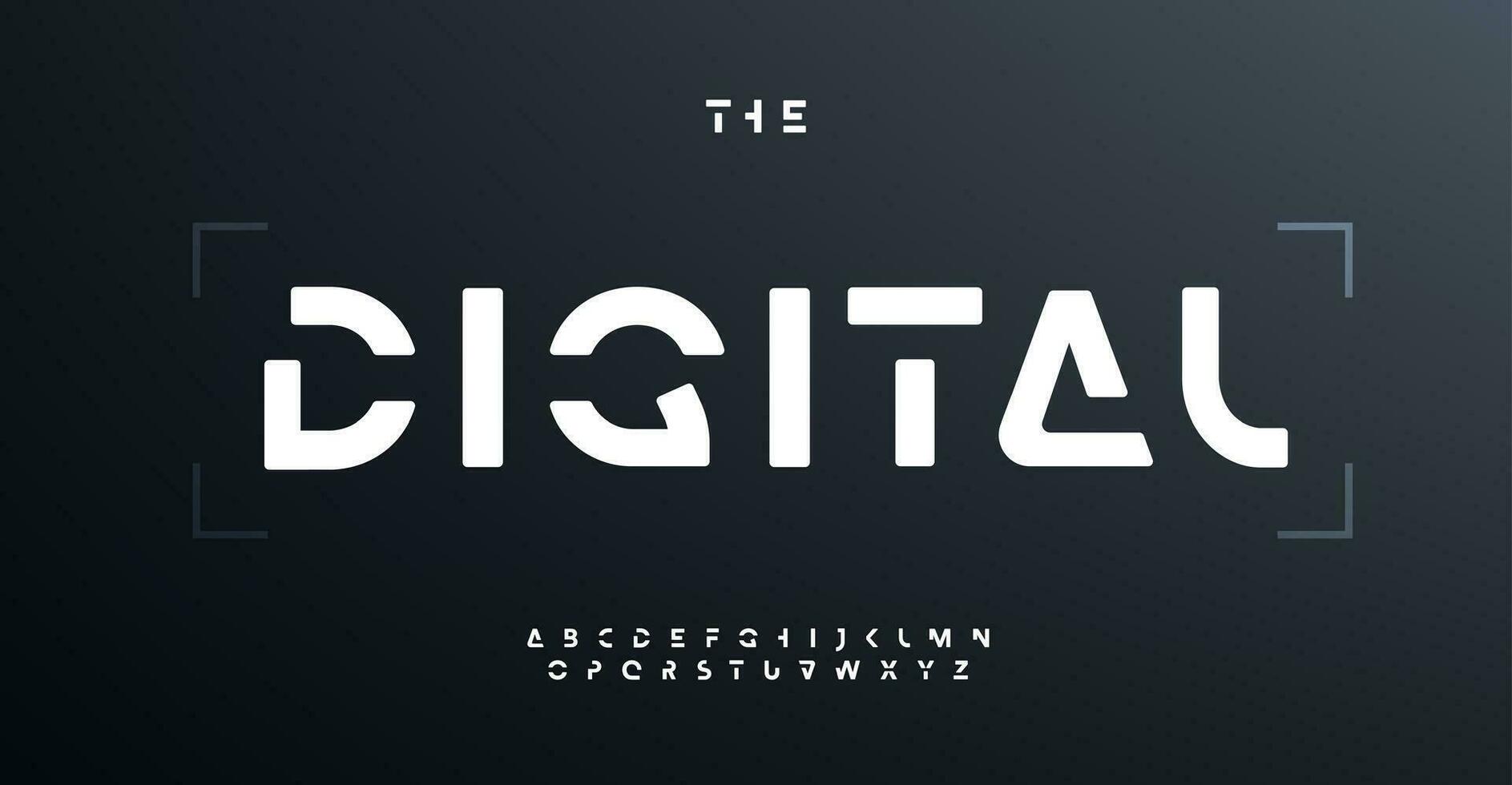
Techno stencil font, bold cropped letters, futuristic and space alphabet for logo, headline, contemporary typography, modern typographic design. Vector typeset Pro Vector